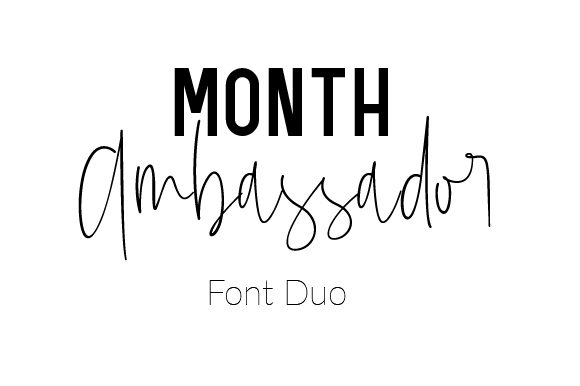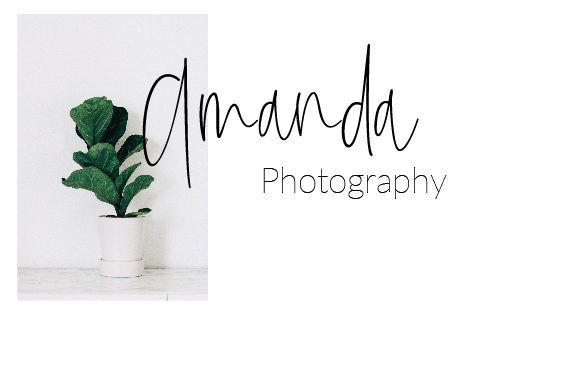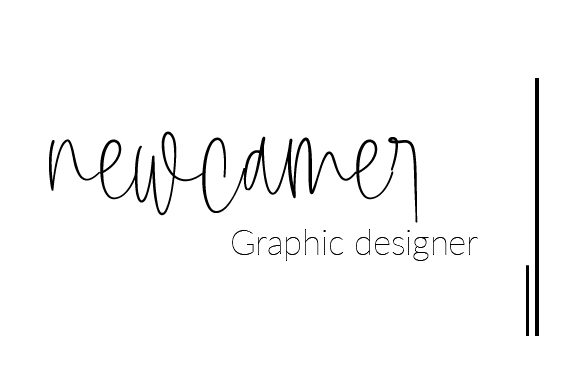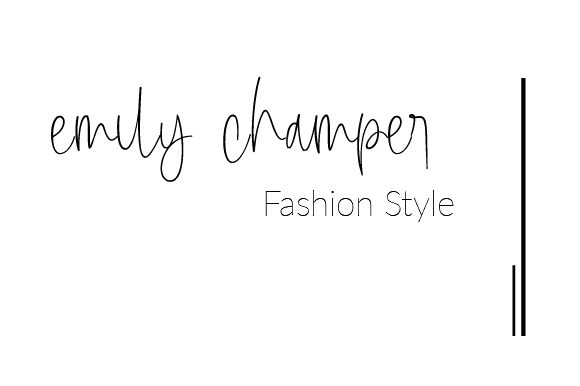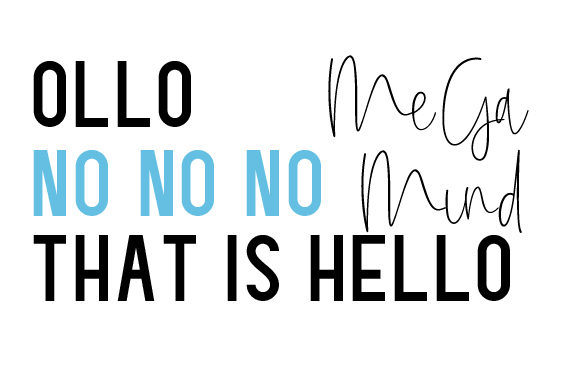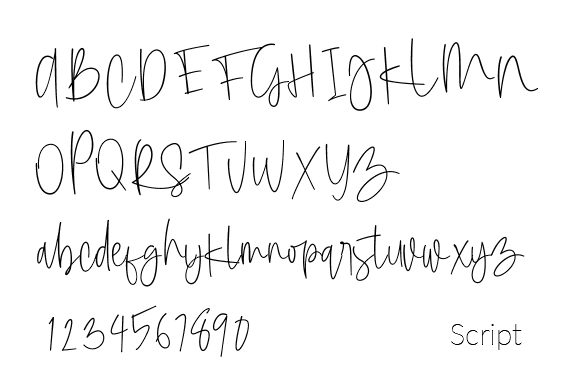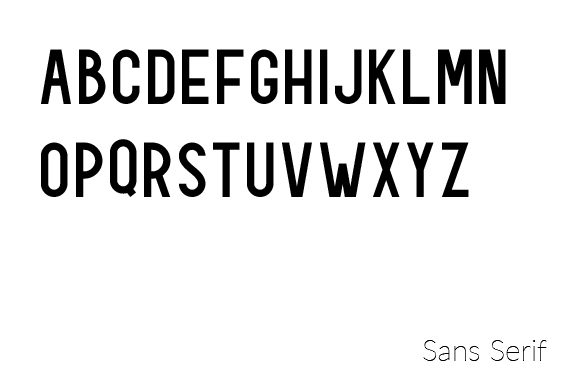
Mont Ambassador Duo Font
About Mont Ambassador Duo Font
Mont ambassador is a beautiful high fashion font duo with a contemporary feel. Get inspired by its lighthearted feel.